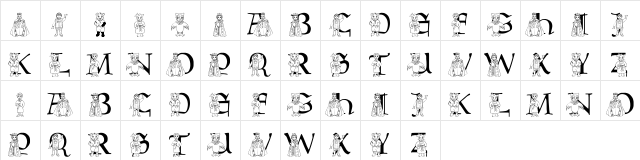
LMS Be My Neighbor Regular Font Preview
LMS Be My Neighbor Regular
LMS Be My Neighbor Regular Font Details
Design Context for LMS Be My Neighbor Typeface
LMS Be My Neighbor is a composed and adaptable typeface that performs quietly and consistently across a wide range of design contexts.